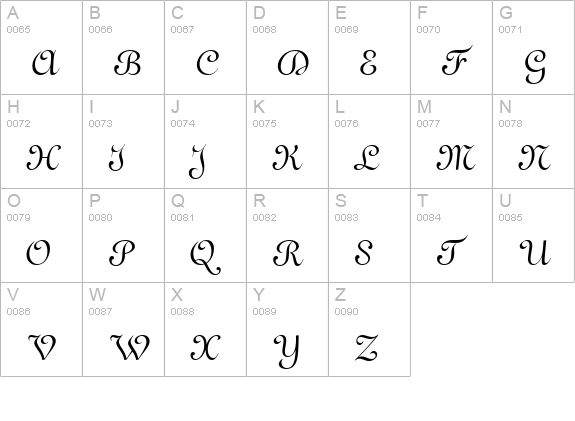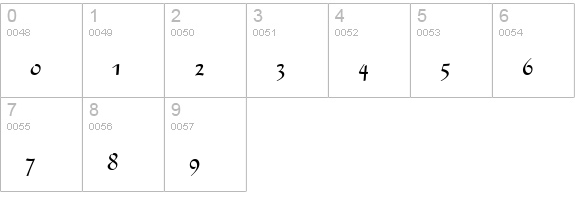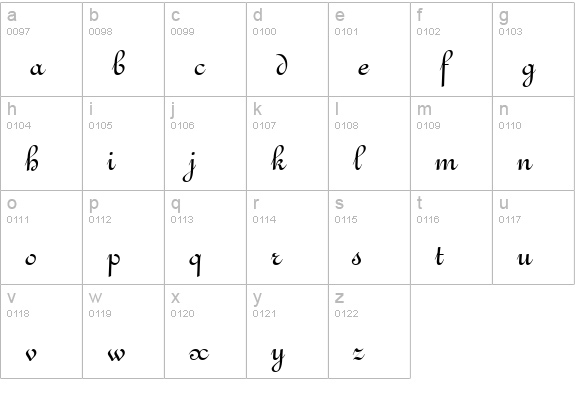
Gando BT Font Details
Gando BT font is a versatile and elegant typeface that effortlessly combines modernity with a touch of sophistication. Its sleek and streamlined design captures attention and adds a refined aesthetic to any project. The clean lines and balanced proportions of this font make it perfect for both headlines and body text, ensuring readability and visual harmony. What sets Gando BT font apart is its incredible versatility. Whether you're designing a logo, creating a website, or working on a print project, this font adapts seamlessly to various contexts, effortlessly conveying your message with style and impact. Its timeless appeal makes it suitable for a wide range of industries and purposes, from fashion and beauty to technology and business. But what truly makes Gando BT font a standout choice is its accessibility. This font is available for free download at FontsMarket.com, one of the leading online platforms for premium and high-quality fonts. By offering Gando BT font freely, its creators have made it accessible to designers, students, and enthusiasts alike, ensuring that everyone has the opportunity to utilize its unique qualities. With Gando BT font, you can unleash your creativity and elevate your designs without breaking the bank. Its availability as a free download allows you to experiment and explore its potential without any limitations. Whether you're a professional designer or a hobbyist, this font empowers you to bring your ideas to life with ease. So, if you're in search of a versatile, elegant, and free font that will take your design projects to new heights, look no further than Gando BT font. Download it today from FontsMarket.com and unlock a world of possibilities for your next creative endeavor.